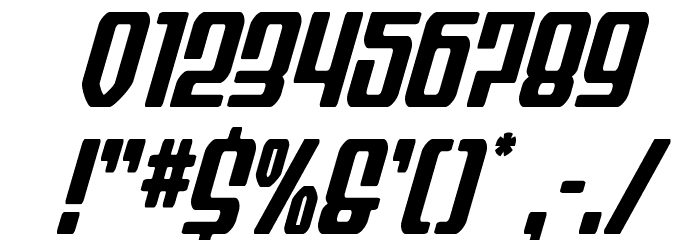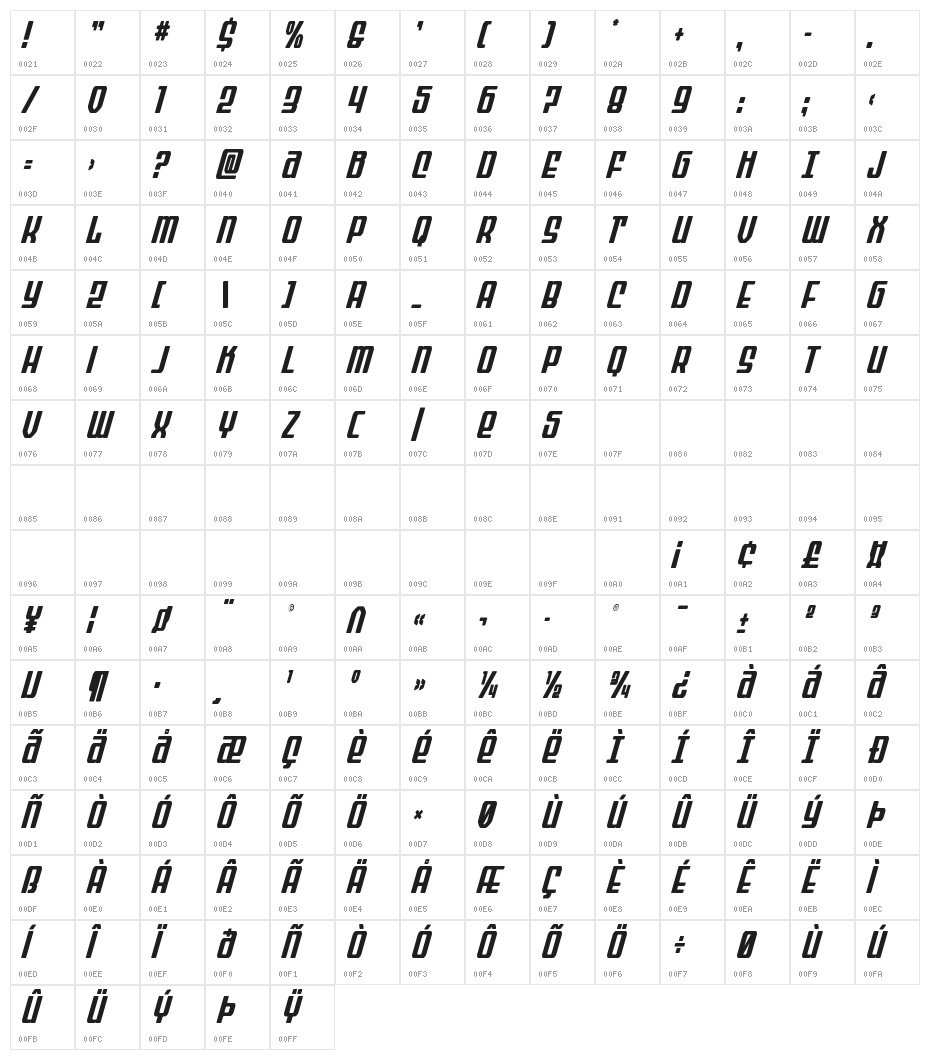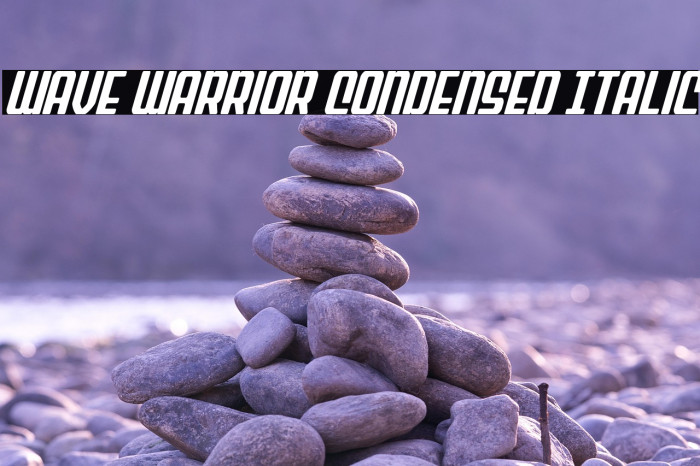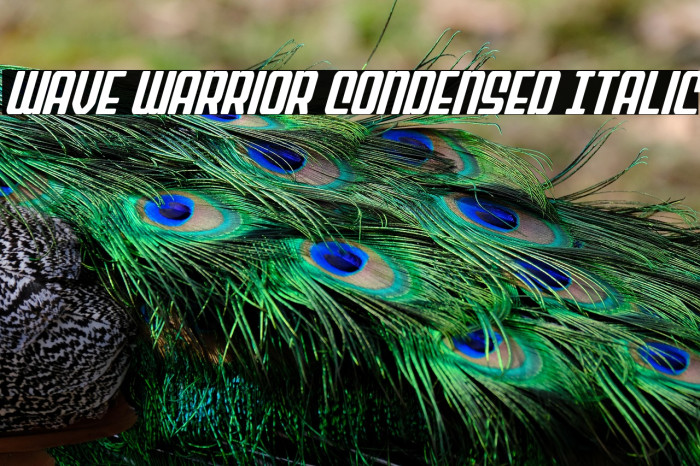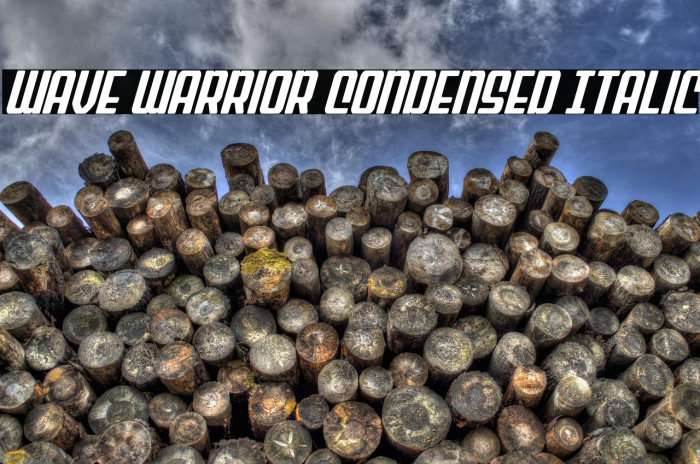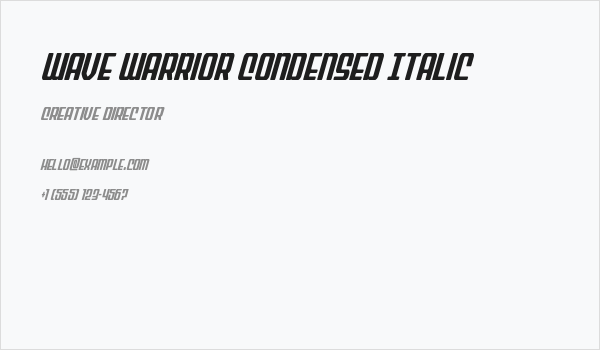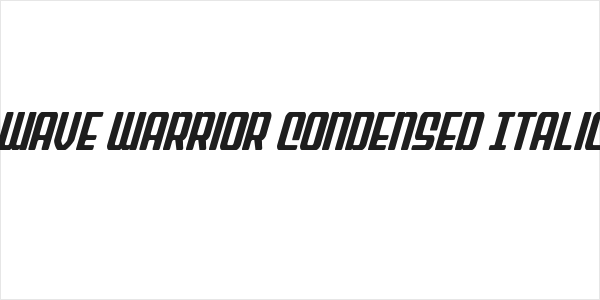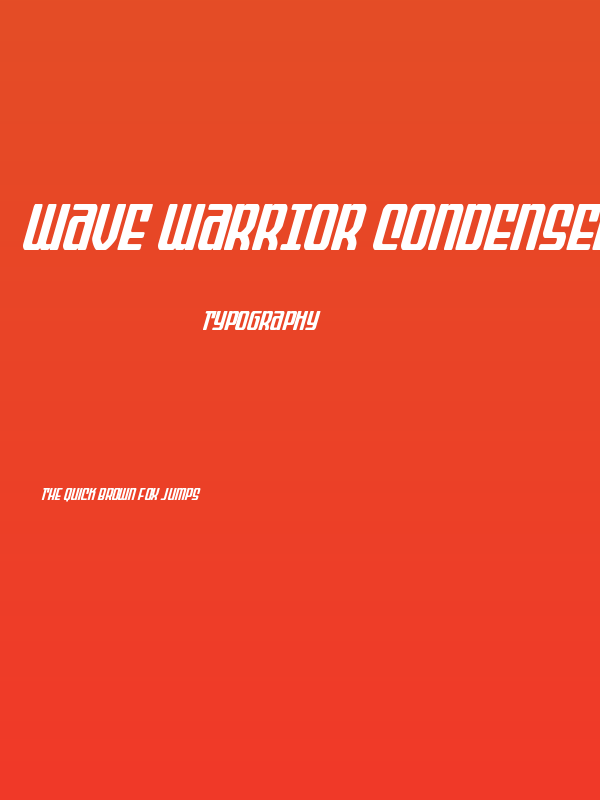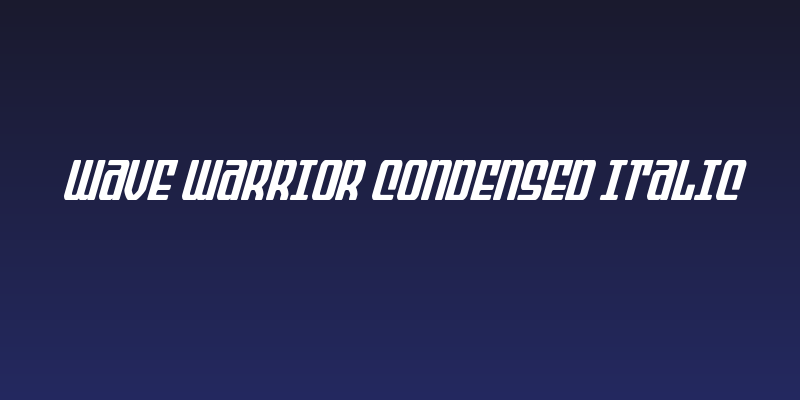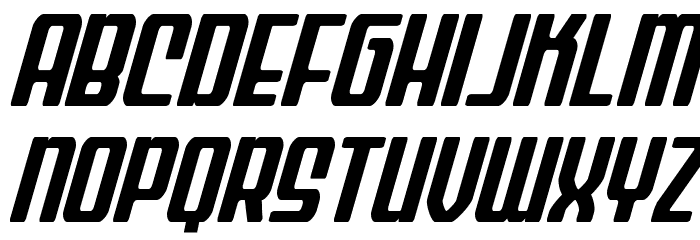
Wave Warrior Condensed Italic Font
Wave Warrior Condensed Italic Description
This font features a bold, italicized style with a condensed width, giving it a dynamic and energetic appearance. The characters are tightly spaced, enhancing its compact look. The strokes are consistent in thickness, providing a medium contrast that balances readability with a striking visual impact. Its modern and sleek design makes it suitable for attention-grabbing headlines and impactful logos. The angular and geometric shapes of the letters contribute to its contemporary aesthetic, making it ideal for projects that require a bold statement.